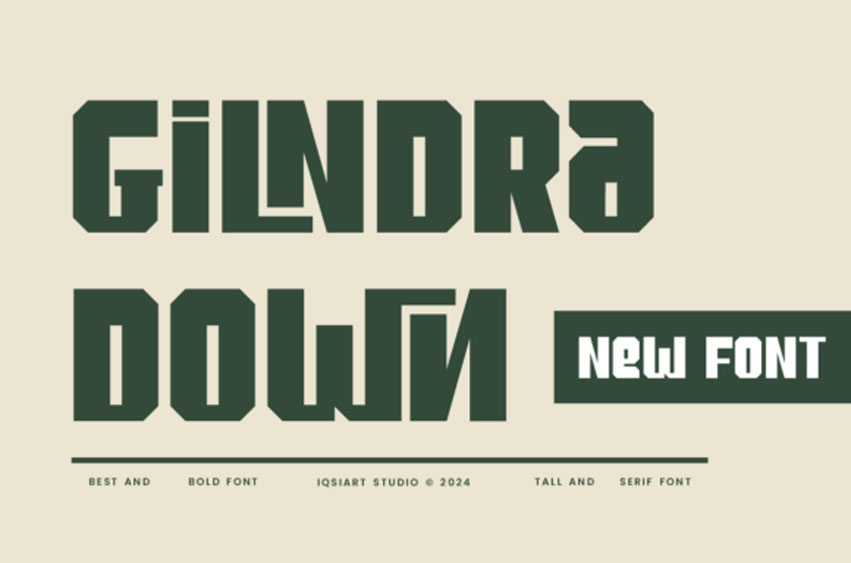
Gilndra Down Font
Gilndra Down Font is an incredibly cool and unique sans serif font.
It has a modern yet whimsical style and it will undoubtedly immerse your designs into a magical world.